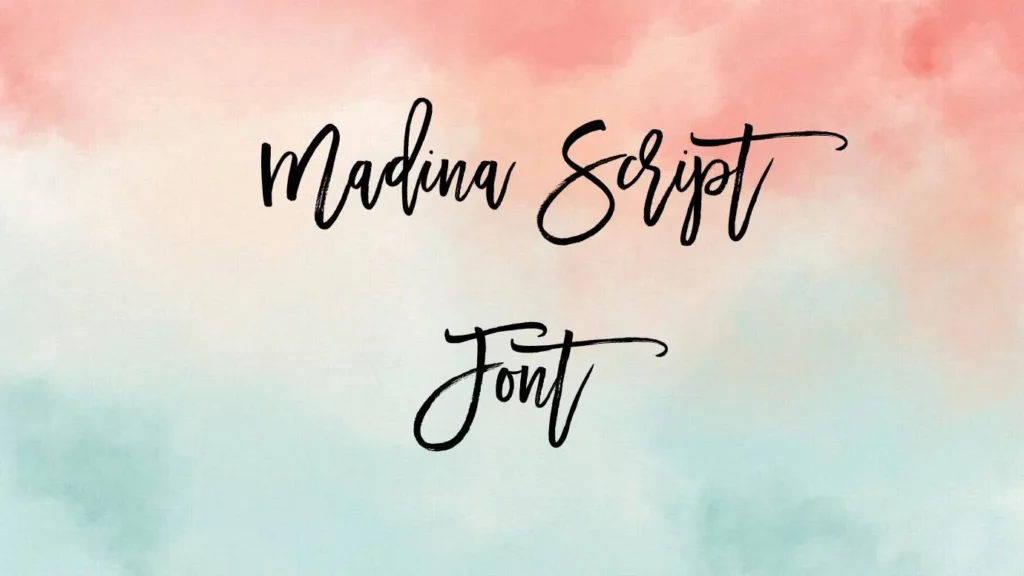
This texture was introduced in 2020 and features stunning calligraphy. This typeface has up to 300 glyphs, including some punctuation and special characters.
Introducing Madina Script Font, one of the most beautiful texture designs. A member of the advanced group of script typefaces, this is a beautiful style. That has a texture appearance resembling calligraphy. One of the most renowned and well-known graphic and typeface design studios, Ghuroba Studio, is responsible for the creation of this typeface.
This texture was introduced in 2020 and features stunning calligraphy. This typeface has up to 300 glyphs, including some punctuation and special characters. We will be able to appreciate how diligently the typeface's designer worked on it once we see the outcome of this letterform. This typeface has a texture similar to the great good vibes font.
This calligraphy typeface has a lovely texture design and works well for invitations, marketing materials, and advertisements.
There are numerous textures that complement this font, but the Khadija calligraphy font pairs best with and is most similar to this texture.
The stunning Madina Script Typeface belongs to the advanced group of script typefaces. That has a texture appearance resembling calligraphy.